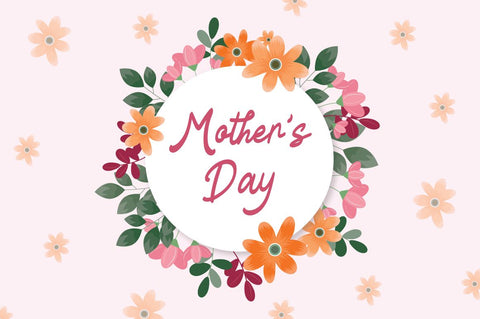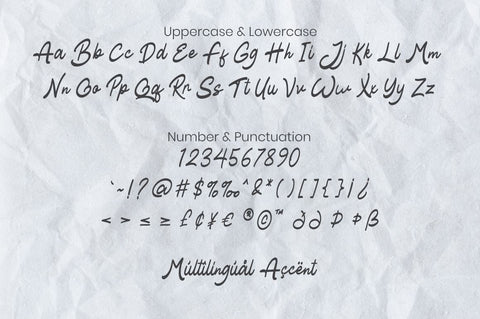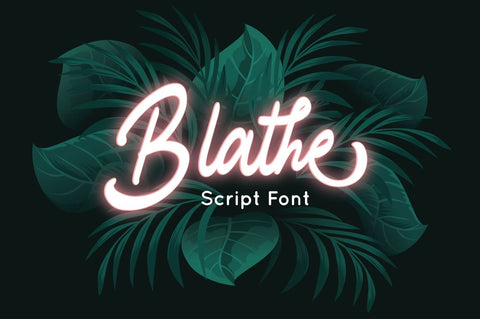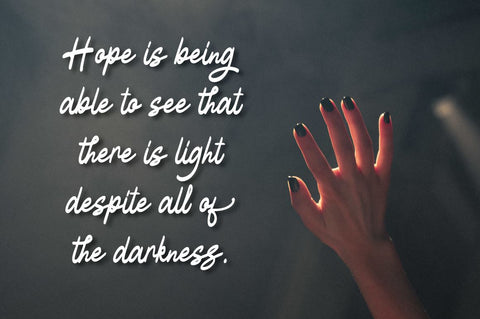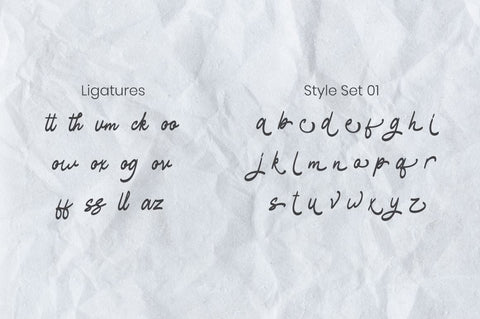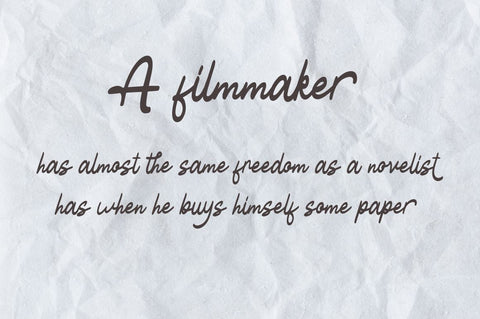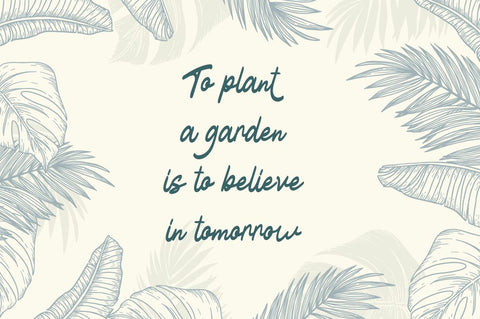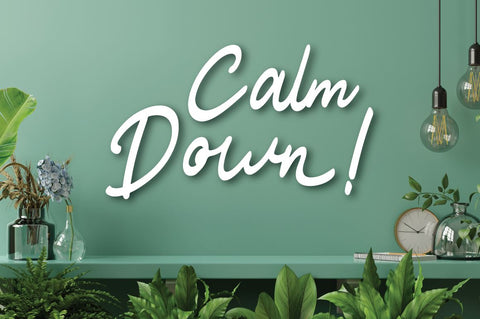
Blathe - Script Font
Blathe is a Modern Script Font. Perfect font for business brand.
Combine Blathe stylistic set to create amazing script font!
Fall in love with its incredibly versatile style and use it to create spectacular designs!
Blathe is perfect for branding, logo, invitation, quotes, wedding invitation, cricut font, silhouette font, product packaging, merchandise,
game titles, cute style design, Book/Cover Title and more.